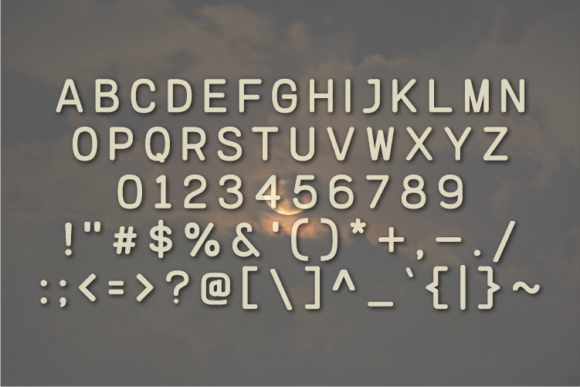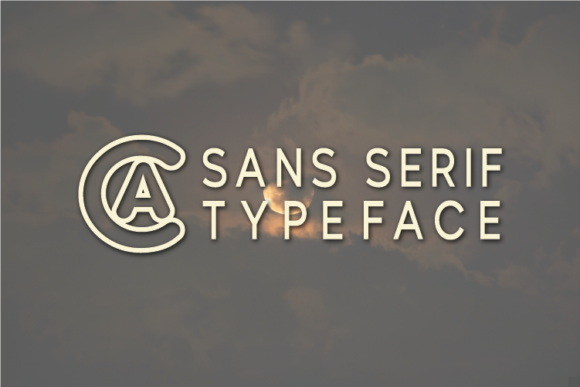
Introducing Frenchio Font: The Ultimate Sans Serif for Modern Designs
In the world of typography, fonts play a crucial role in conveying messages, expressing emotions, and creating visual identities. For designers and crafters, finding the perfect font can be a daunting task, especially when it comes to creating modern and stylish designs. This is where Frenchio Font comes in – a minimal and neat sans serif font that’s perfect for a wide range of applications.
What is Frenchio Font?
Frenchio is a carefully crafted sans serif font that’s designed to be versatile and highly legible. Its clean lines, simple shapes, and balanced proportions make it an excellent choice for designs that require a modern and sophisticated look. Whether you’re creating a logo, advertisement, or merchandise, Frenchio Font is the perfect companion to help you achieve your creative vision.
Key Features of Frenchio Font
• Minimal and Neat Design: Frenchio’s sans serif design ensures that your text remains clean and uncluttered, making it perfect for designs where simplicity is key.
• High Legibility: The font’s clear and balanced structure ensures that your text is easily readable, even at small sizes.
• Versatile: Frenchio Font can be used for a wide range of applications, from t-shirts and sportswear to logos, advertisements, and clothing.
• Modern and Sophisticated: The font’s sleek design makes it perfect for modern designs that require a touch of elegance and sophistication.
Use Cases for Frenchio Font
Frenchio Font is an incredibly versatile font that can be used for various design projects. Here are some of the most popular use cases:
• T-Shirts and Apparel: Create stylish and modern t-shirts, hoodies, and other apparel with Frenchio Font.
• Sportswear: Add a professional touch to your sportswear designs with this clean and legible font.
• Logos and Branding: Use Frenchio Font to create modern and memorable logos that reflect your brand’s personality.
• Advertisements: Create eye-catching advertisements with Frenchio Font that grab attention and communicate your message effectively.
• Clothing and Fashion: Add a touch of elegance and sophistication to your clothing and fashion designs with this beautiful sans serif font.
Why Choose Frenchio Font?
With so many fonts available, why should you choose Frenchio Font for your design projects? Here are some compelling reasons:
• Unique and Modern Design: Frenchio Font offers a fresh and modern take on sans serif fonts, making it perfect for designers who want to create unique designs.
• Easily Customizable: The font’s simple design makes it easy to customize and adapt to your brand’s style.
• High-Quality: Frenchio Font is crafted with attention to detail, ensuring that it meets the highest standards of quality and legibility.
Frenchio Font is an exceptional sans serif font that’s perfect for designers and crafters who want to create modern and stylish designs. Its minimal and neat design, high legibility, and versatility make it an excellent choice for a wide range of applications. Whether you’re creating t-shirts, logos, advertisements, or clothing, Frenchio Font is the perfect companion to help you achieve your creative vision. So why wait? Download Frenchio Font today and take your designs to the next level!